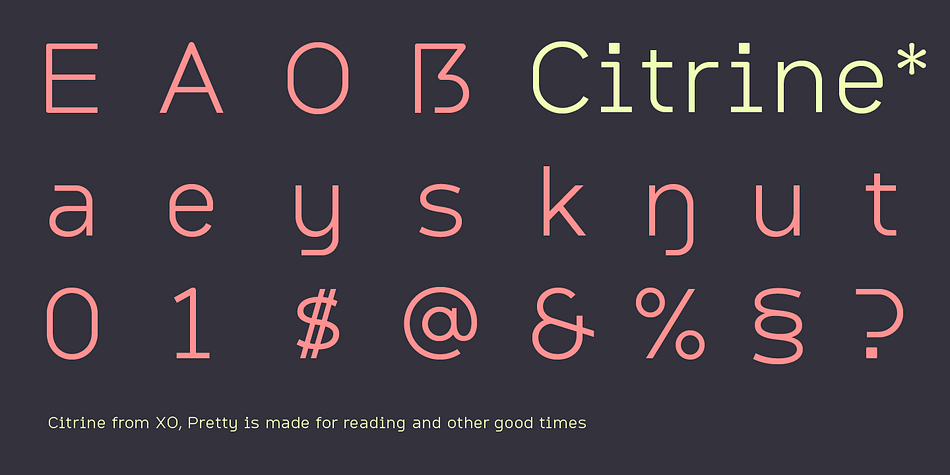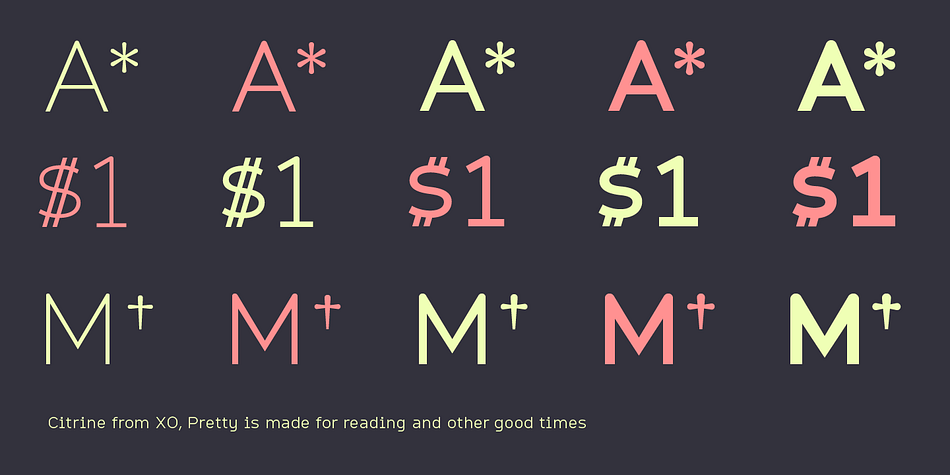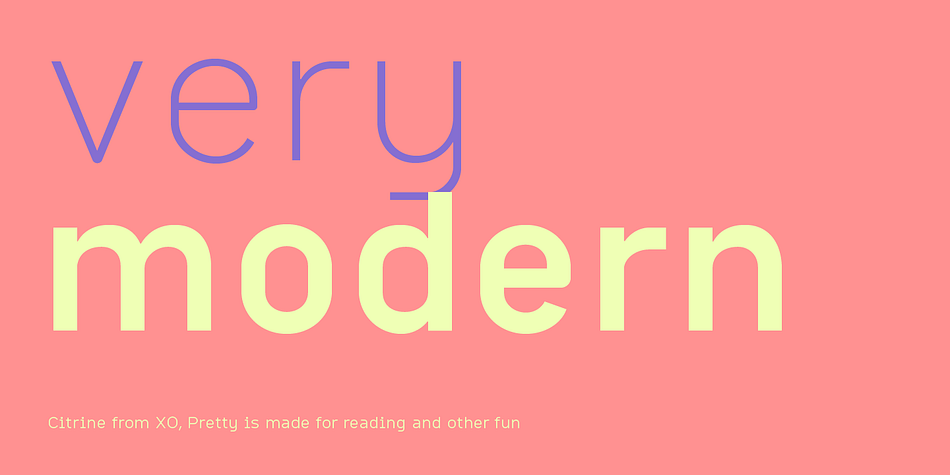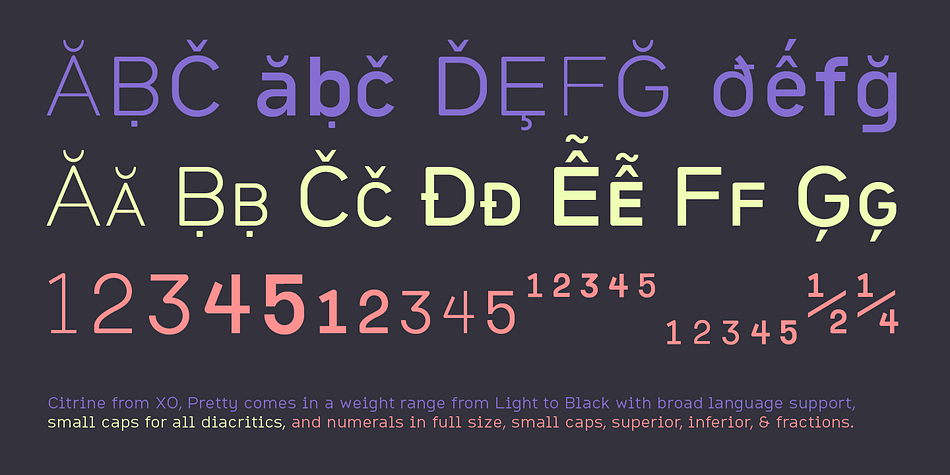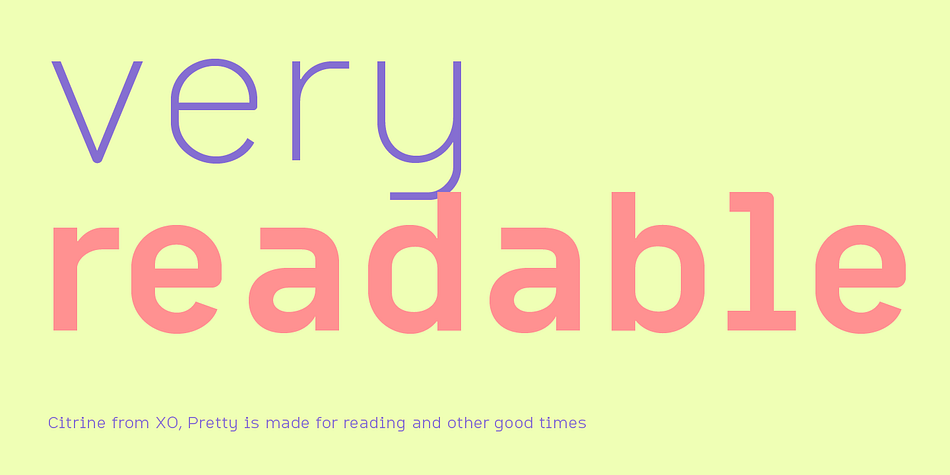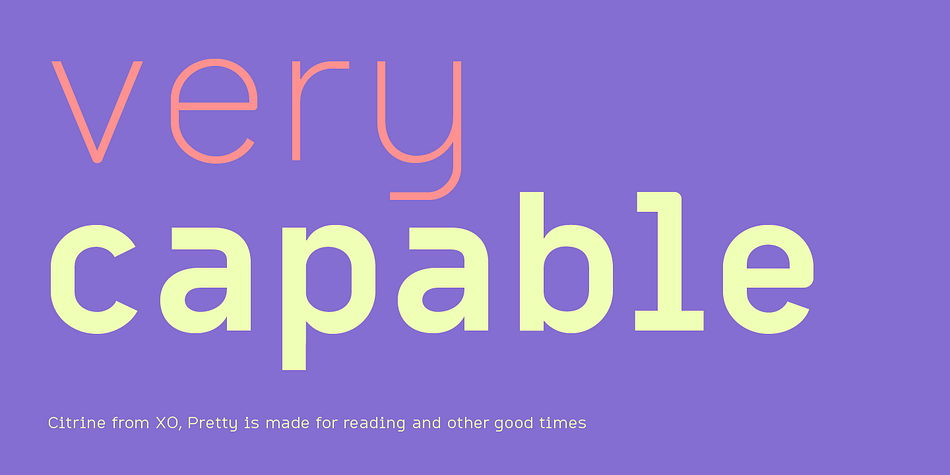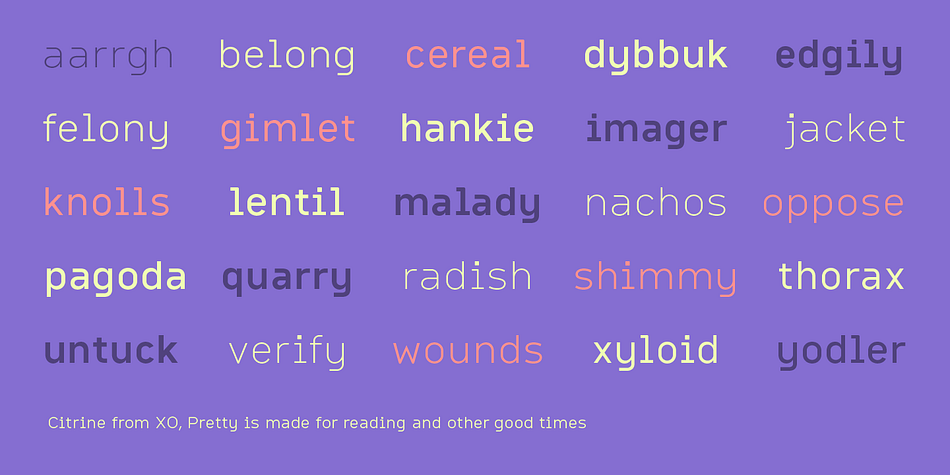
Designed by Patric King, Citrine is a sans serif font family. This typeface has five styles and was published by XO.
Citrine is a study in curves, based upon word-processing and in-game text. A tall lowercase makes for easy reading, curved joints give it friendliness, and broad spacing delivers distinctive all-caps treatments.
Citrine’s basic idea began as “a Havelock for reading.” Essential geometry delivers a sense of harmony, and forms sit broadly next to each other to be easily read, even onscreen and very small.